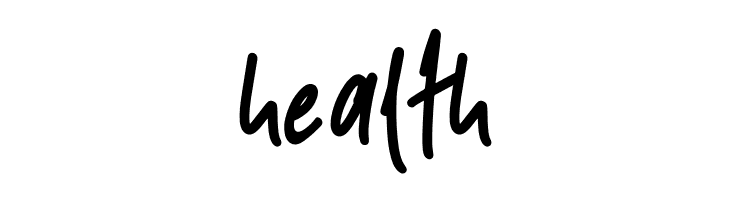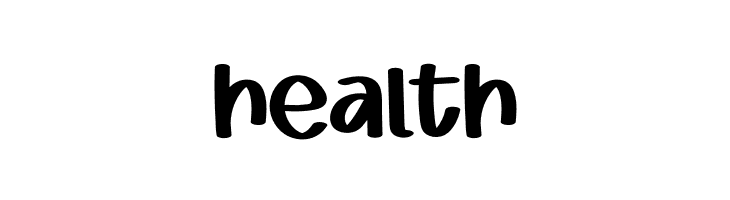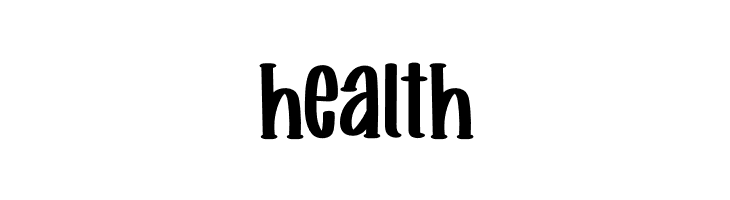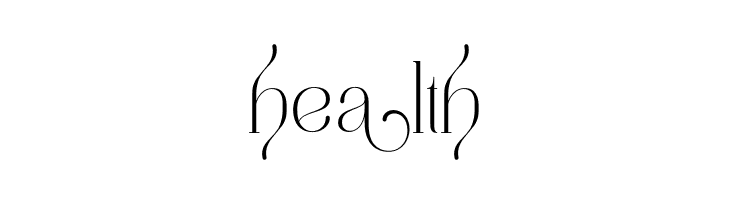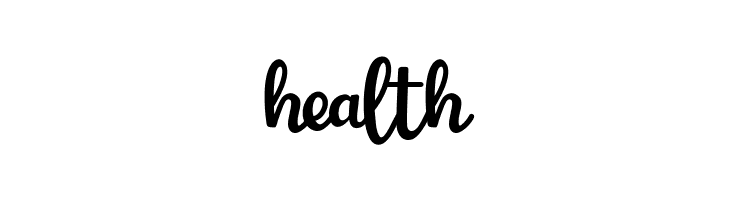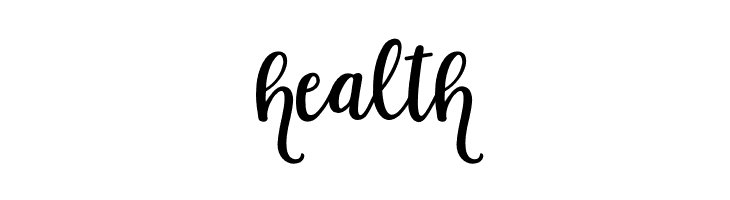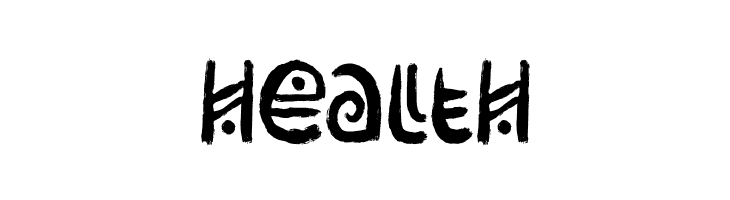
A bold, expressive handwritten font with fluid and dynamic strokes.
A playful, bold, and rounded hand-drawn font with a whimsical style.
A playful and bold font with rounded, whimsical letterforms.
A bold, modern font with a slightly condensed style and strong visual impact.
A refined and elegant typeface with thin, elongated strokes and decorative flourishes.
A playful and flowing script font with a handwritten appearance.
A playful and whimsical font with curly, flowing letterforms and decorative flair.
A bold, italicized font with a strong, dynamic appearance.
A bold serif font with dramatic contrast and elegant style.
A bold, hand-drawn font with an expressive and artistic style.